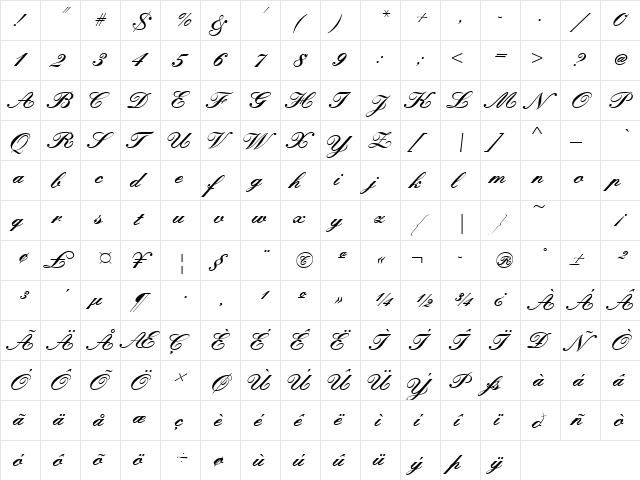
KunstlerschreibschJoiDBol Regular
Design Context for KunstlerschreibschJoiDBol Typeface
KunstlerschreibschJoiDBol is a composed and adaptable typeface that performs quietly and consistently across a wide range of design contexts.